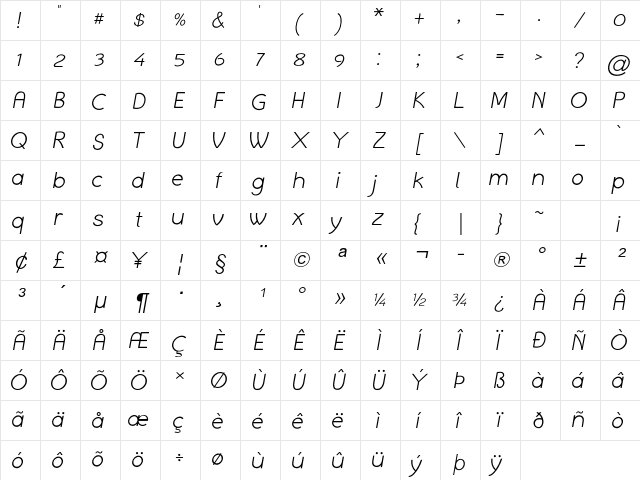
Crux Regular
Crux Family
Design Context for Crux
Crux is a composed and adaptable typeface that performs quietly and consistently across a wide range of design contexts.
Pro Tip: Use Crux in both headline and body roles to test its range before committing to a single application.